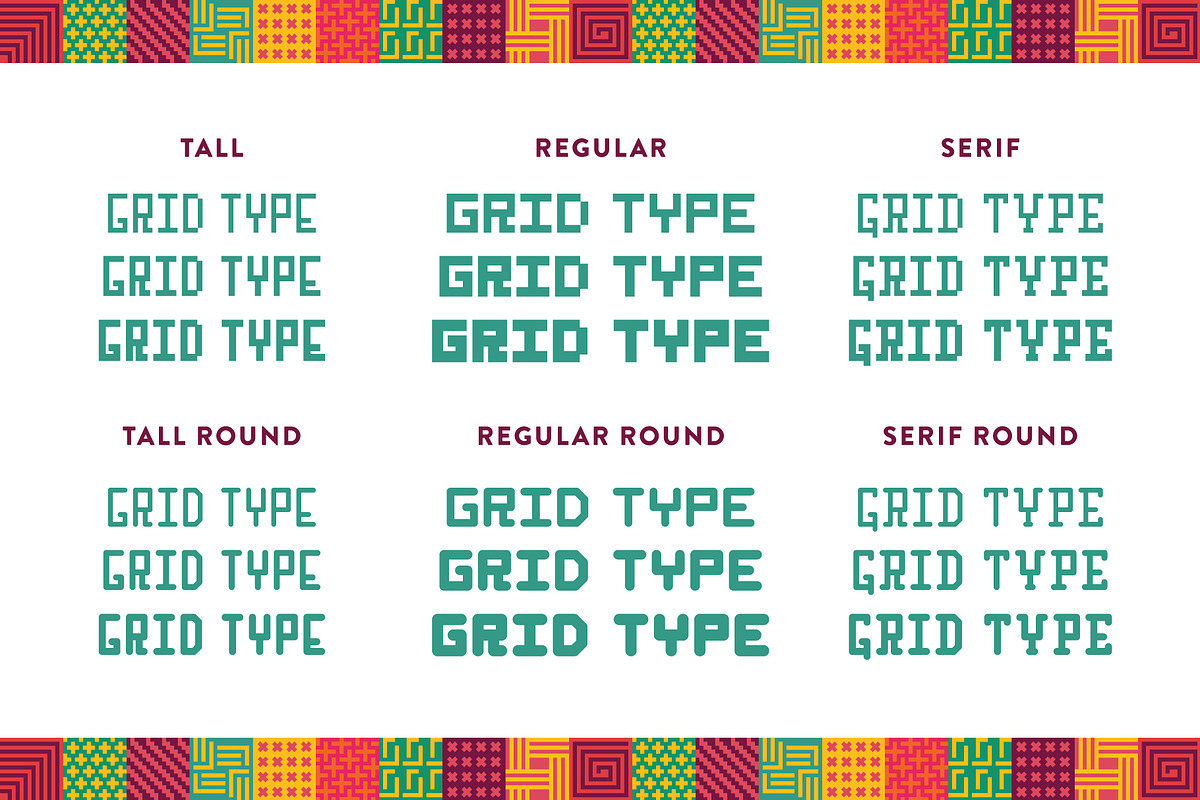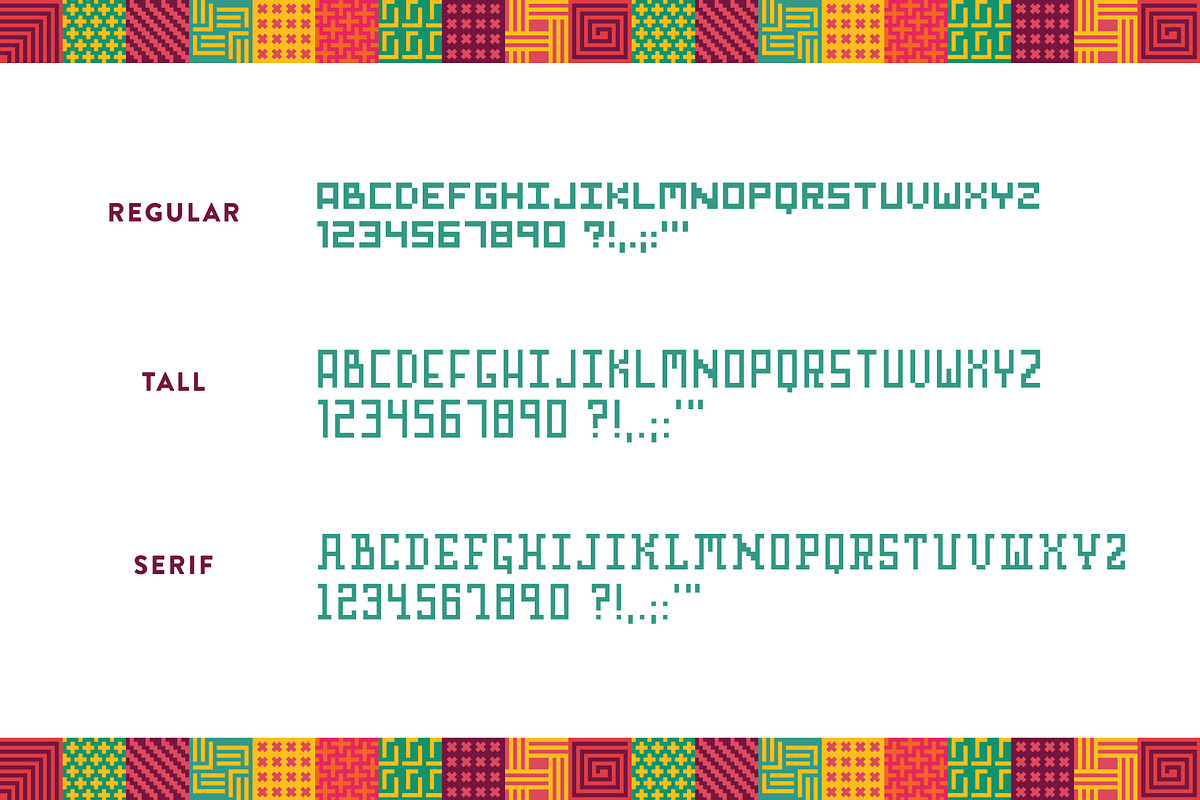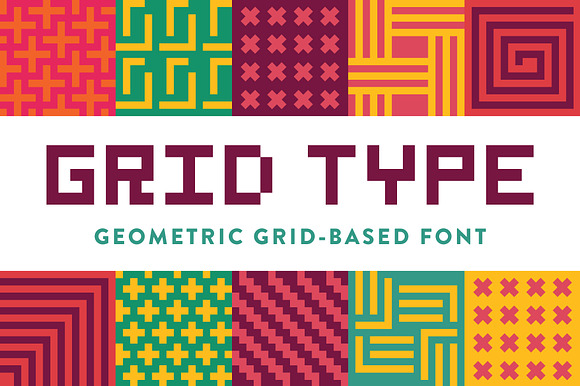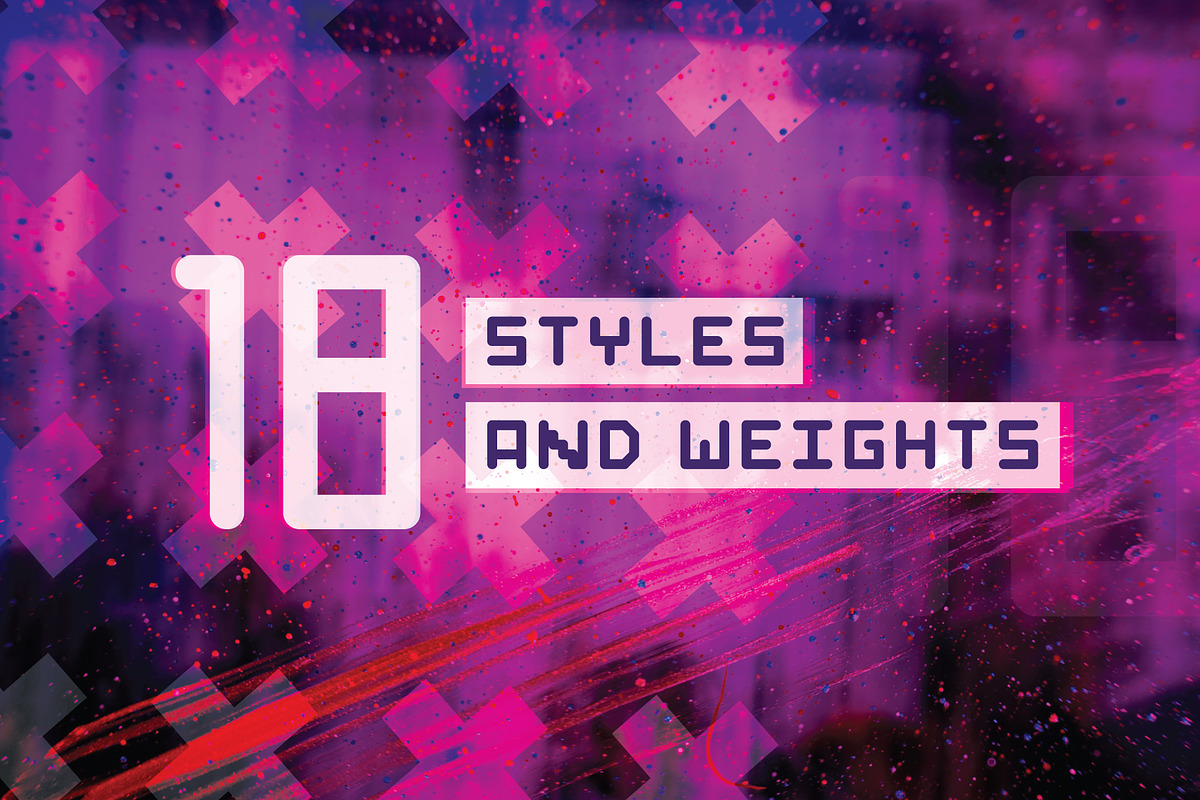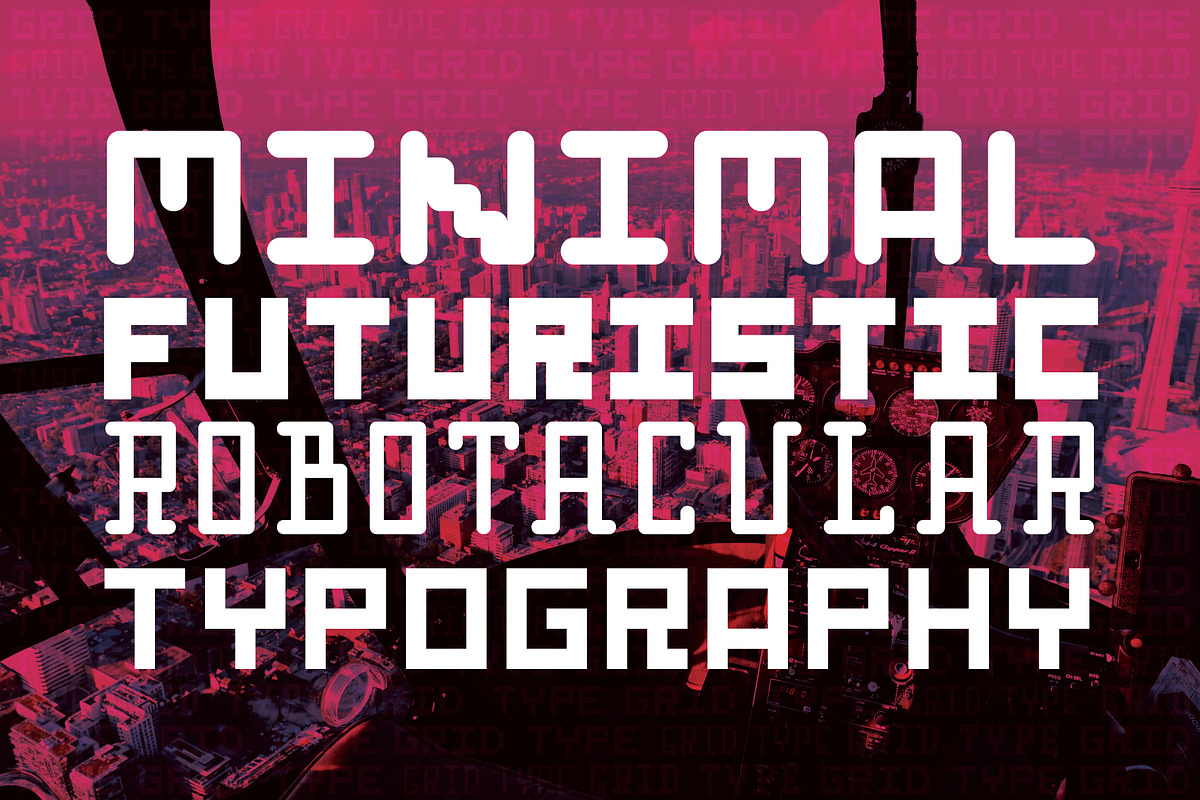
Grid Type - Geometric Font
GET YOUR GRID ON WITH GRID TYPE
I present to you my next geometric font, designed on a perfect grid for tight, clean design. Included are 18 font files: six styles and three weights per style.
- Uppercase alphabet A-Z Numbers 0-9 Special characters !?,.:;'"